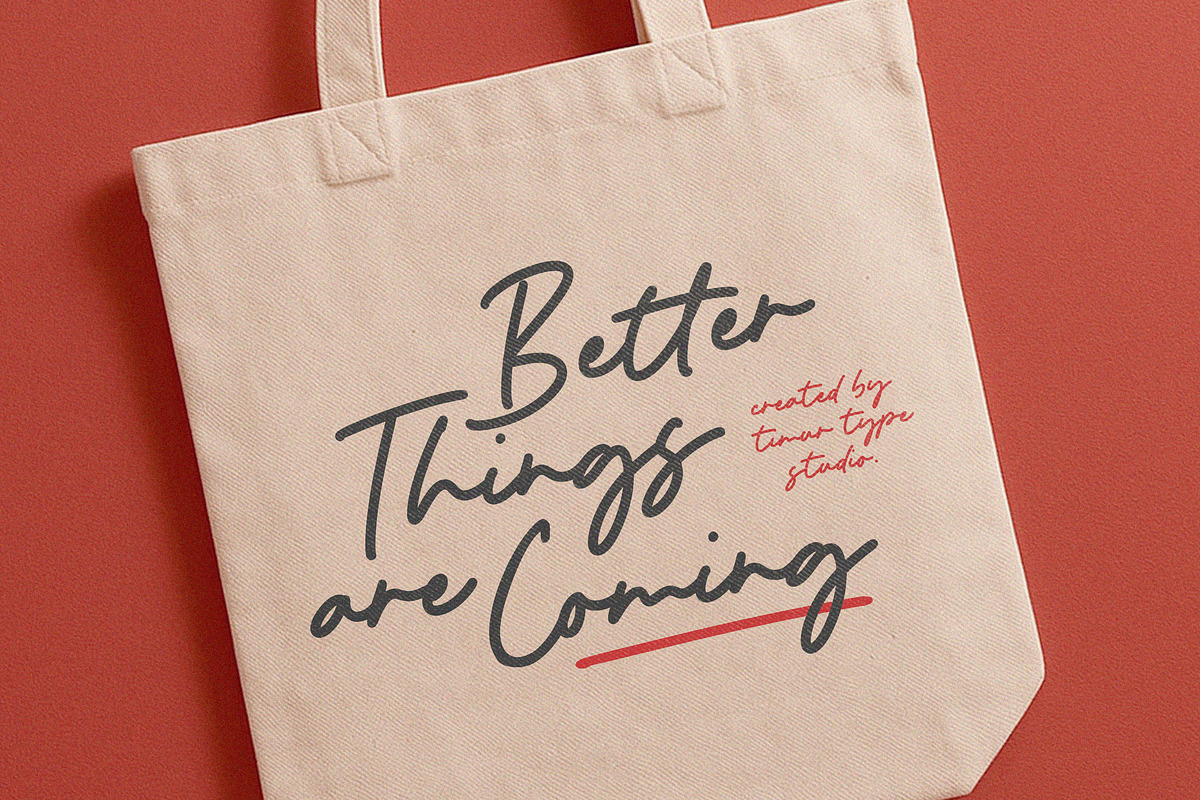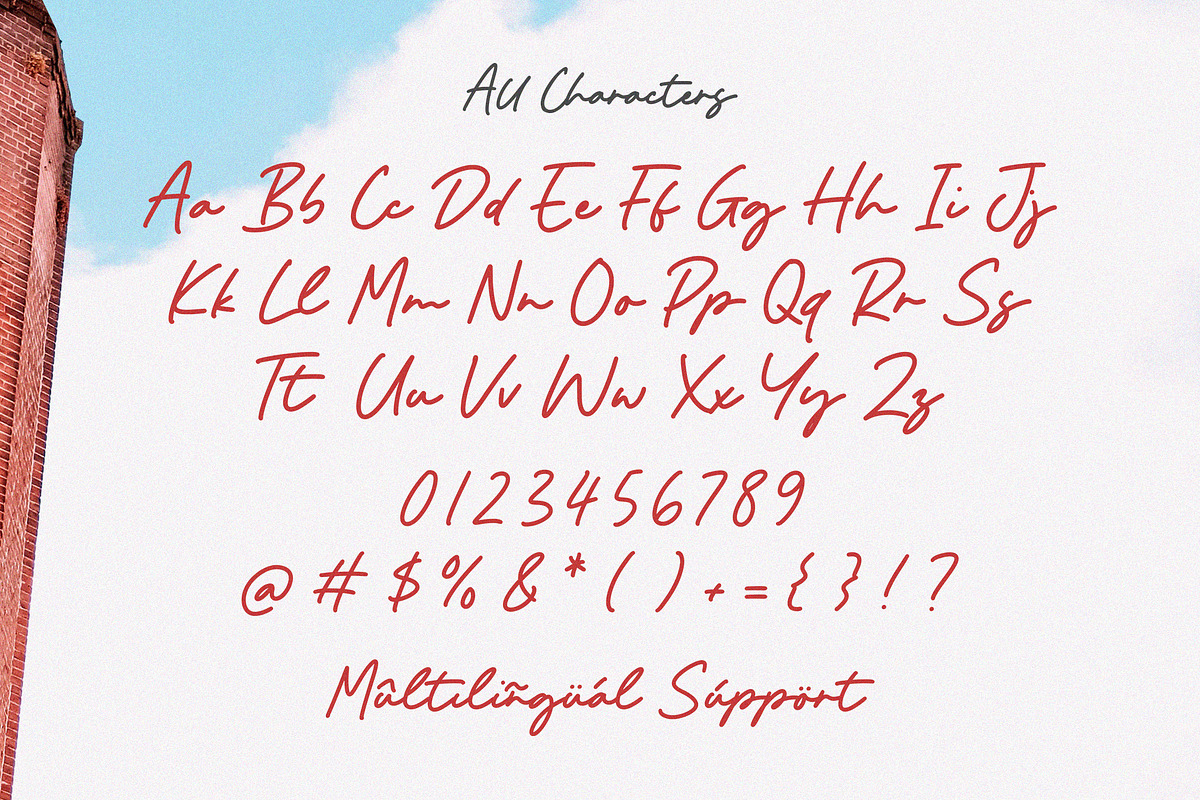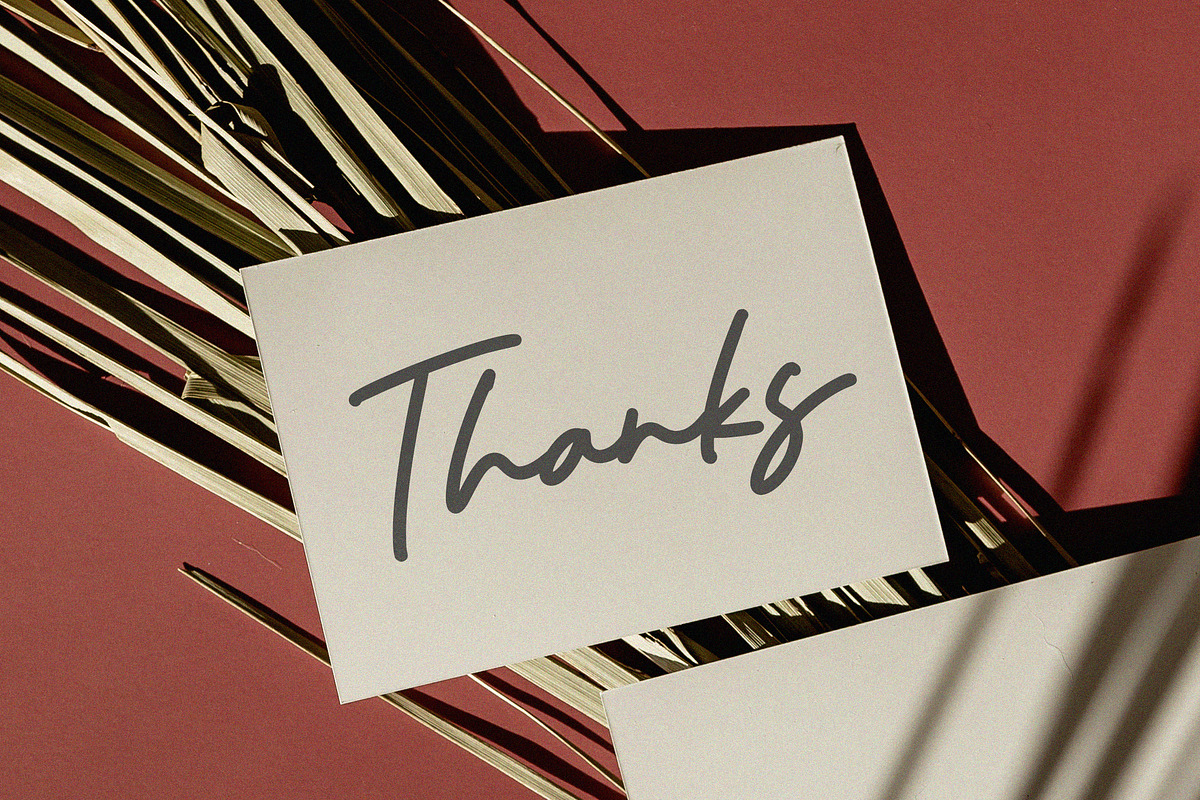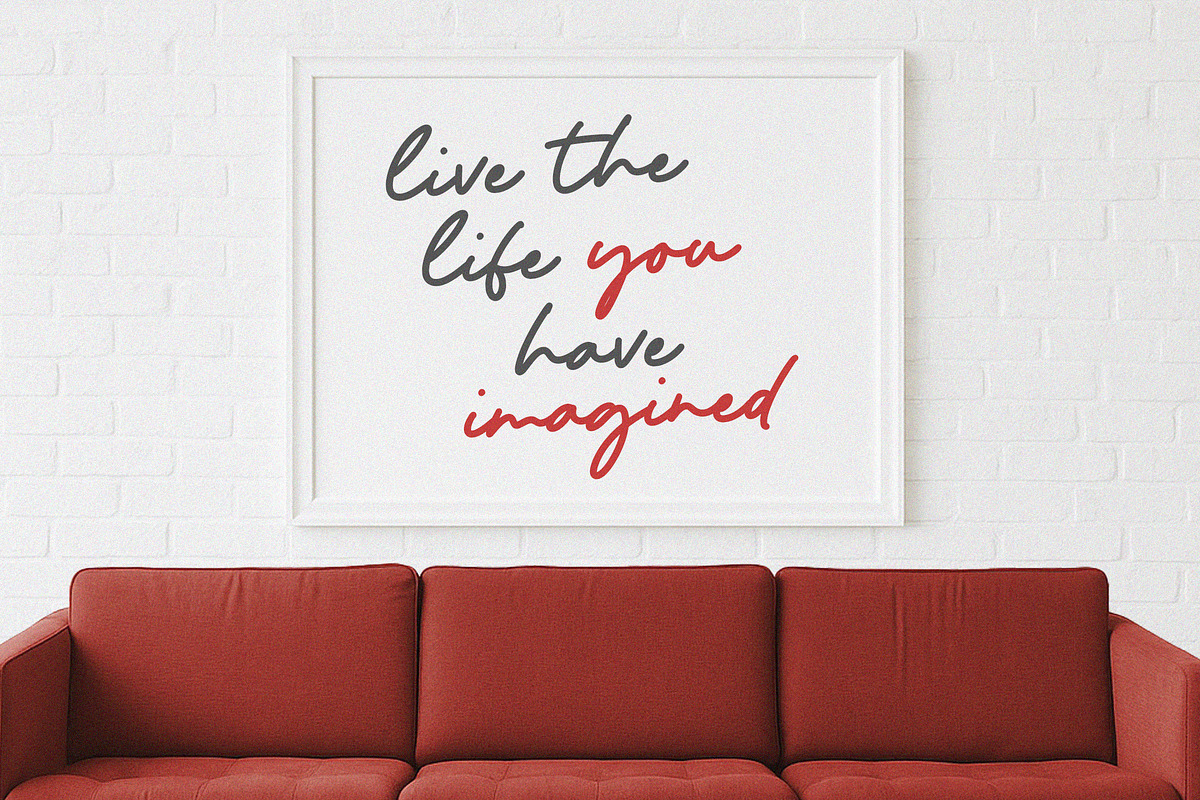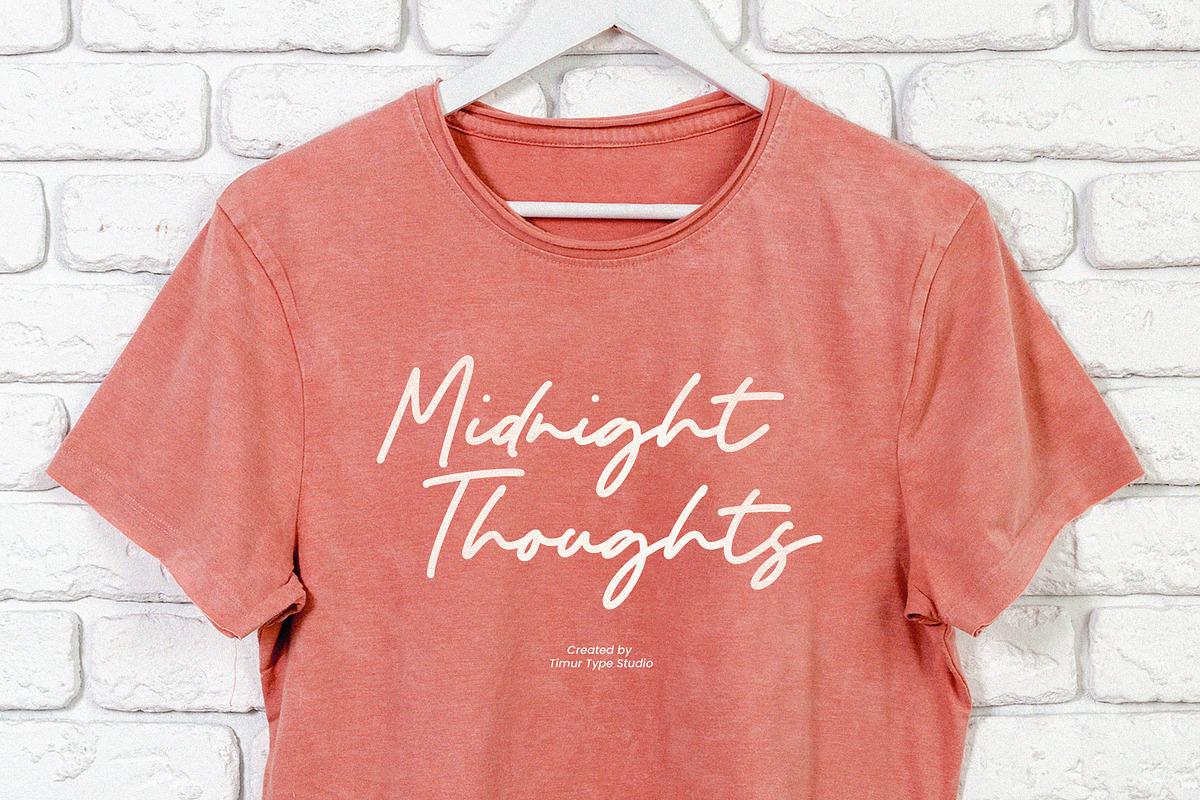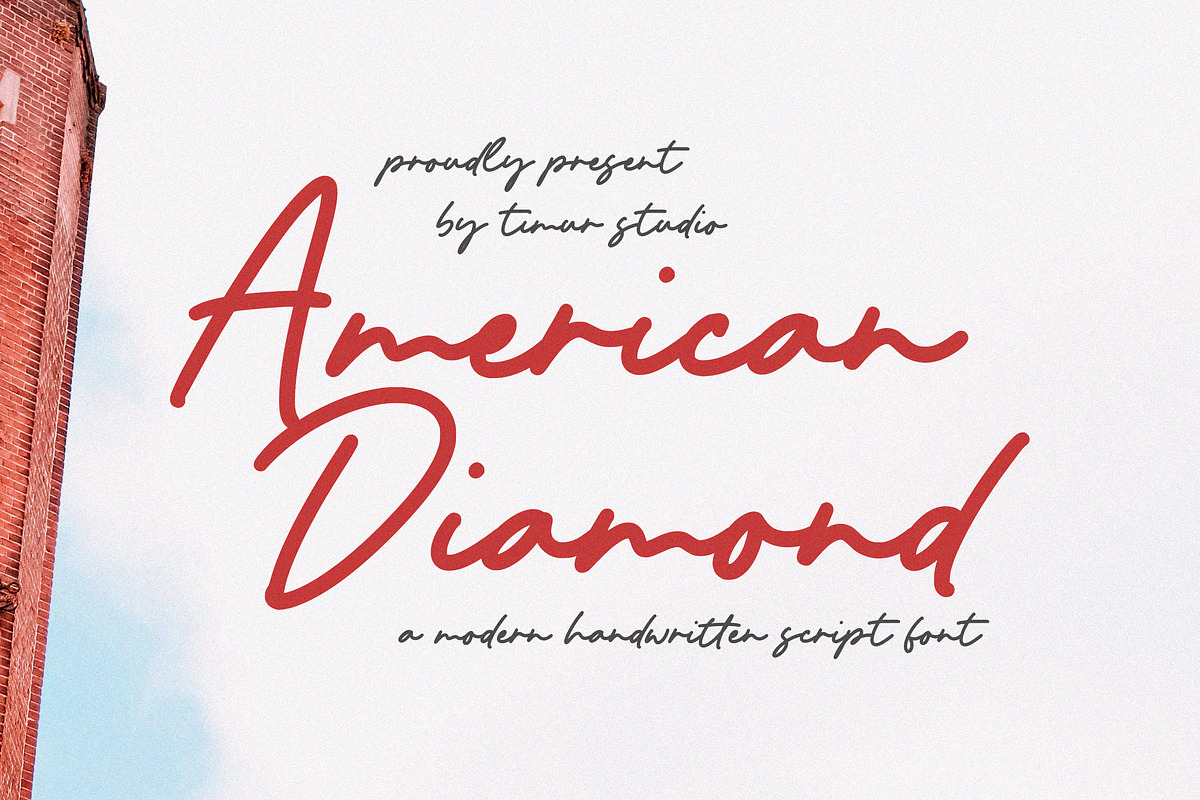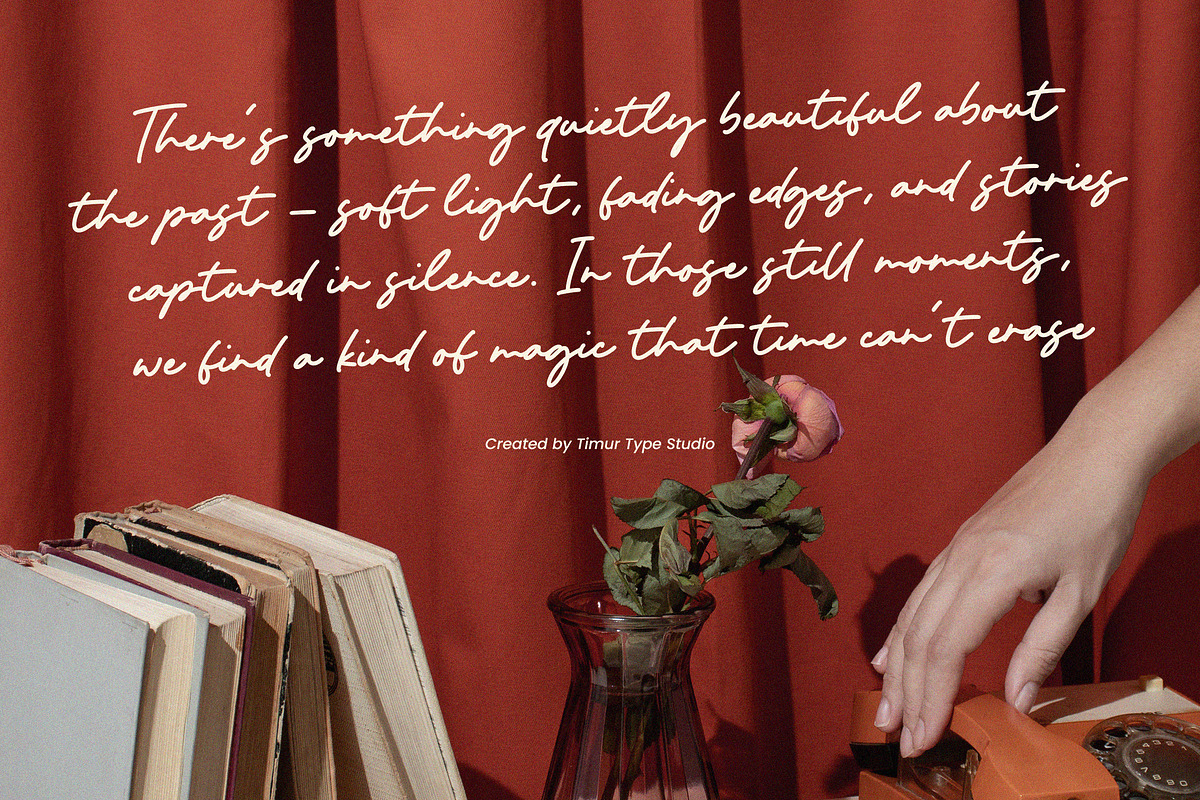
American Diamond Font
American Diamond is a Modern Handwritten Script Font
This font is a modern handwritten script font that blends elegance with a casual, flowing charm. With its smooth curves and natural strokes, it captures the essence of handwritten calligraphy, making it perfect for invitations, logos, branding, and social media designs. American Diamond adds a sophisticated touch to any project with its stylish yet approachable aesthetic.
American Diamond Font also supports multilingualism